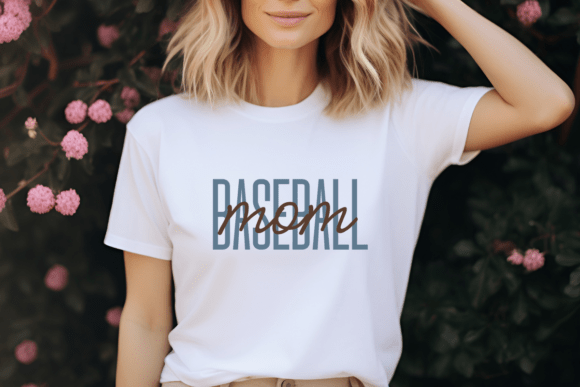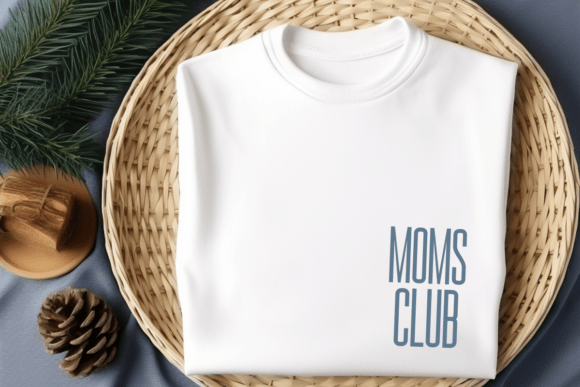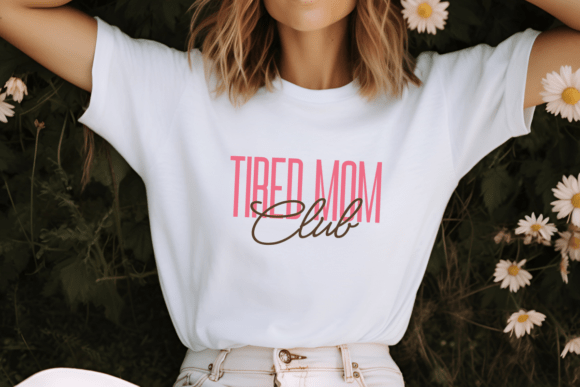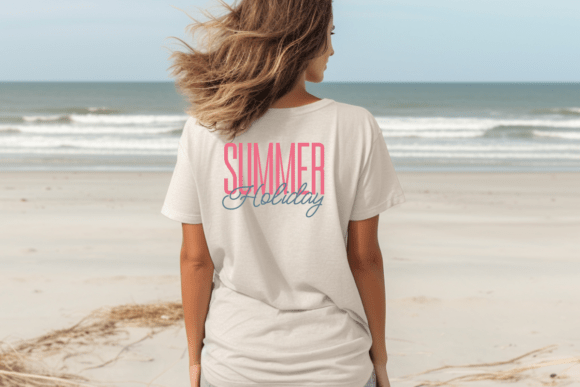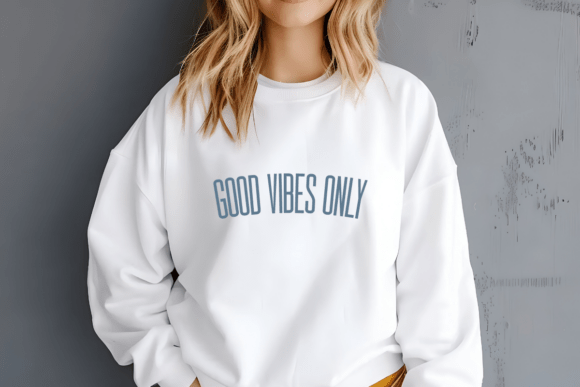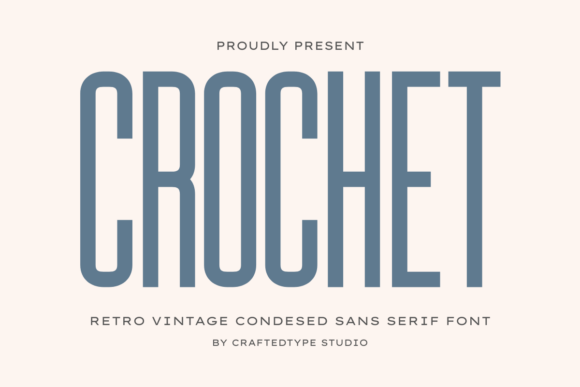
Crochet Font: Elevate Your Designs with Timeless Elegance
In the world of typography, few fonts manage to strike a balance between vintage charm and modern sophistication. Crochet Font is one such typeface that effortlessly merges the elegance of retro aesthetics with the sleekness of contemporary design. This elegant, retro, vintage condensed sans serif font is perfect for designers and crafters looking to add a touch of class to their projects.
The Unique Characteristics of Crochet Font
Crochet Font is distinguished by its extra-tall letterforms and narrow spacing, which are specifically designed to create a high-impact verticality in your designs. This unique feature set allows the font to stand out in any project, making it ideal for applications where you want to make a bold statement. The clean lines and sophisticated proportions of Crochet ensure that it remains versatile, suitable for a wide range of design needs.
One of the key advantages of Crochet Font is its versatility. Its minimalist yet bold aesthetic makes it a perfect choice for various design projects. For crafters and designers working on Print On Demand (POD) projects, Crochet can elevate high-fashion t-shirts, aesthetic posters, and minimalist tote bags with its elegant and modern look. The font’s ability to convey a sense of luxury and sophistication also makes it suitable for more premium applications.
Editorial and Branding Applications
Beyond merchandise, Crochet Font is highly recommended for editorial layouts, magazine mastheads, and luxury branding. Its sleek and sophisticated appearance can add a touch of elegance to any publication or brand identity. Additionally, the font’s cinematic quality makes it perfect for titles in films, videos, and other multimedia projects.
Crafting with Crochet Font
• Design Features: Extra-tall letterforms, narrow spacing, clean lines, and sophisticated proportions
• Ideal for: High-fashion t-shirts, aesthetic posters, minimalist tote bags, editorial layouts, magazine mastheads, luxury branding, and cinematic titles
Why Choose Crochet Font?
Crochet Font stands out in the world of typography for its unique blend of vintage charm and modern elegance. Here are a few reasons why designers and crafters should consider adding Crochet to their toolkit:
• Timeless Aesthetic: Crochet’s design ensures that your projects will remain stylish and relevant for years to come.
• Versatility: From POD projects to luxury branding, Crochet’s versatility knows no bounds.
Crochet Font is more than just a typeface; it’s a design statement. Its elegant, retro, vintage condensed sans serif style, combined with its sleek and modern silhouette, makes it an invaluable asset for designers and crafters. Whether you’re looking to create high-impact vertical designs or simply want to add a touch of class to your projects, Crochet Font is an excellent choice. Its wide range of applications, from fashion and editorial to branding and cinematic projects, ensures that Crochet will become a go-to font in your design arsenal.
Embrace the elegance and versatility of Crochet Font in your next project. With its timeless charm and modern appeal, it’s sure to elevate your designs to new heights.